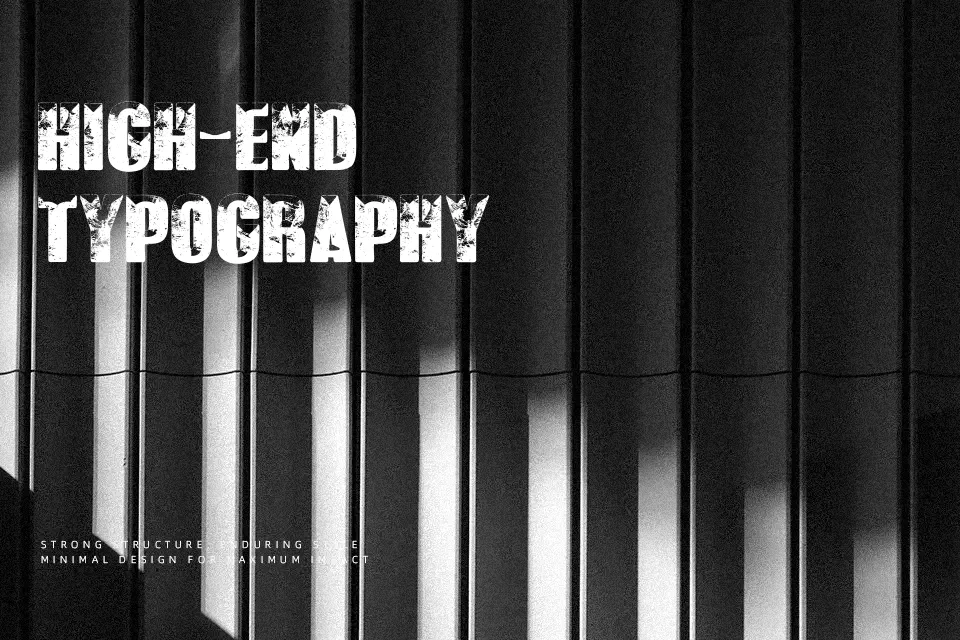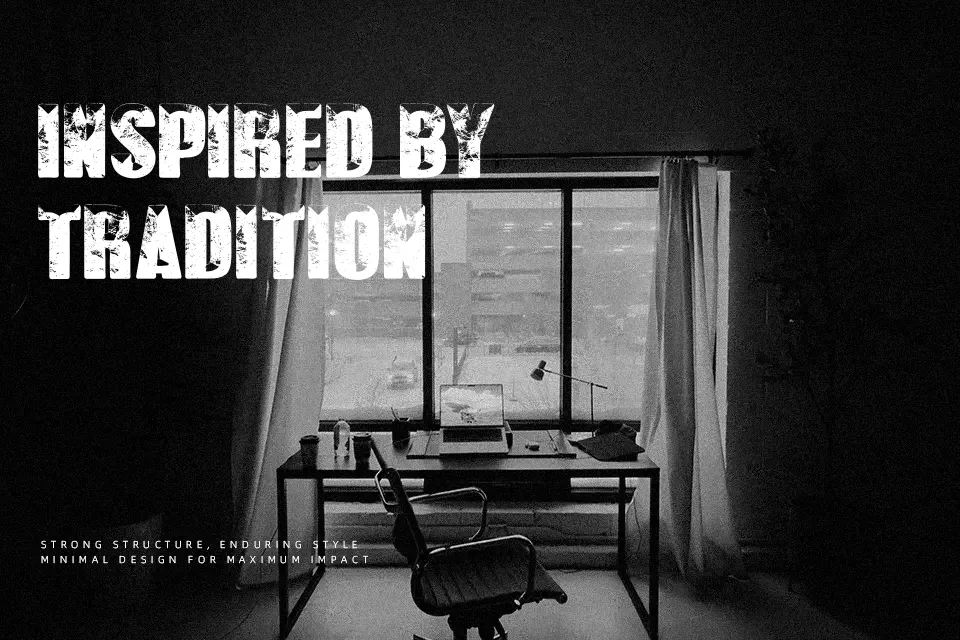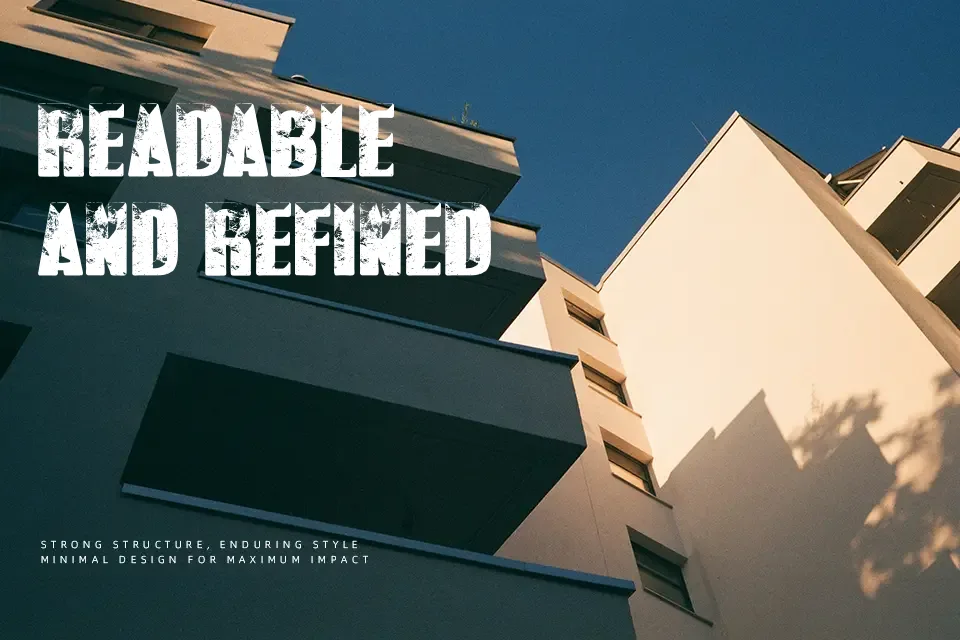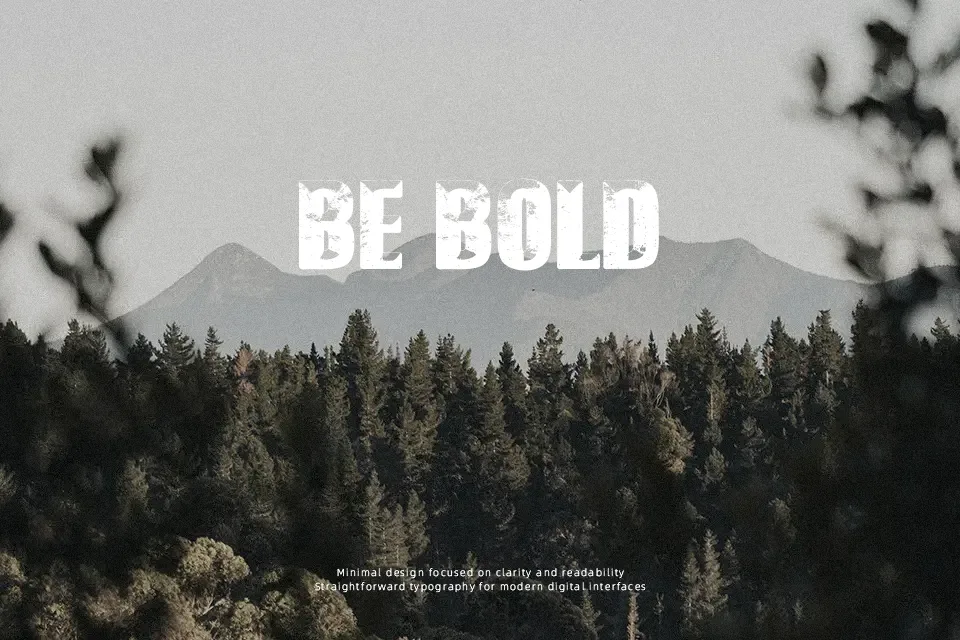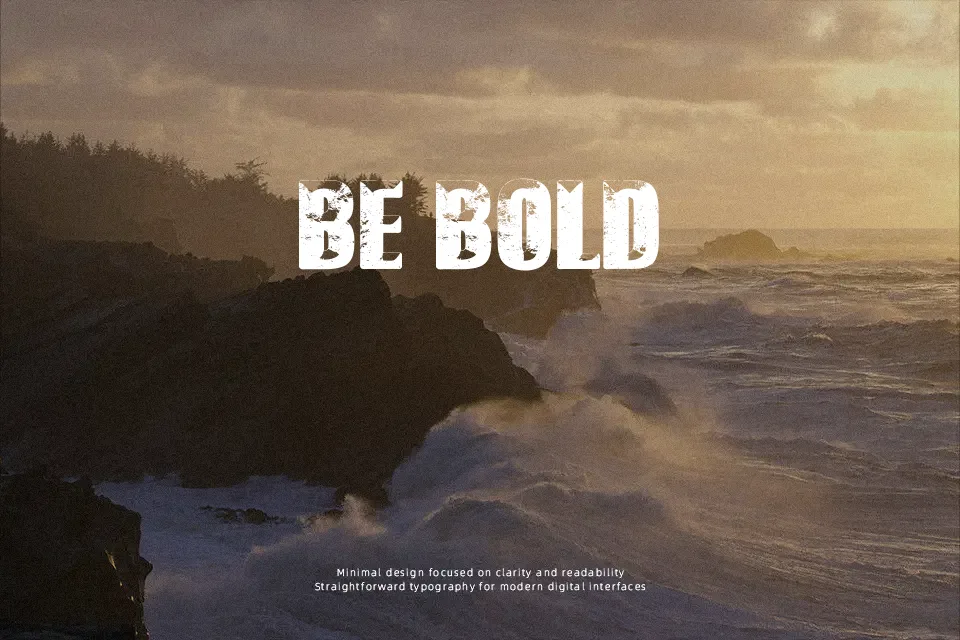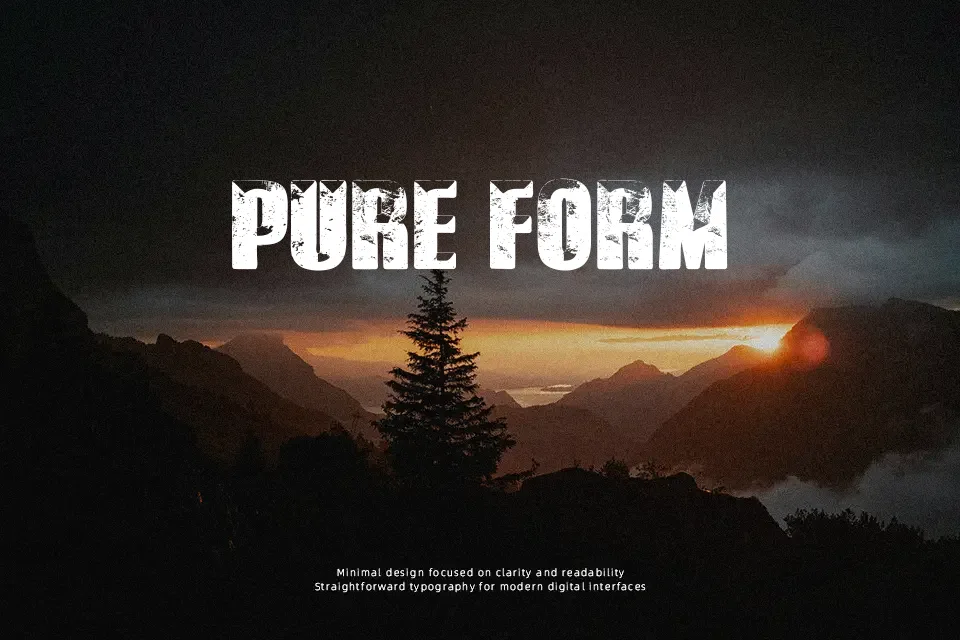
Polar Vortex Font
Polar Vortex Font is a heavily textured display typeface that immediately establishes a rugged, weathered aesthetic. The bold letterforms feature irregular, eroded strokes that give the design a naturally distressed and energetic appearance. With dense proportions and tightly packed spacing, the characters command attention in large-format applications like music festival posters or extreme sports branding. The heavy stroke weight ensures strong visual impact, but the distressed detailing inherently reduces continuous reading comfort. These intricate decorative elements become noticeably less effective at smaller sizes, where the gritty textures start to blur together. Ultimately, the typeface performs best when displayed prominently, allowing its raw, imperfect edges to dictate the design’s overall atmosphere.
Best For: extreme sports branding, music festival posters, outdoor advertising, vintage product packaging
Not Ideal For: long paragraph text, corporate reports, small interface labels, dense editorial layouts
Perfect for branding, headline, and poster, with a bold and decorative style.